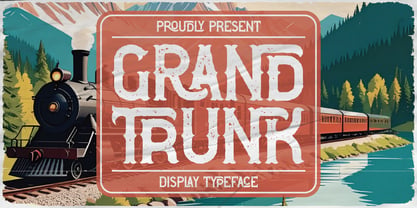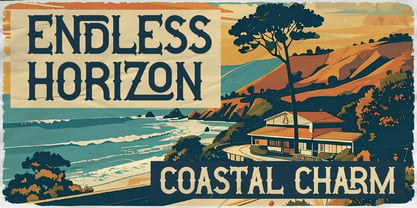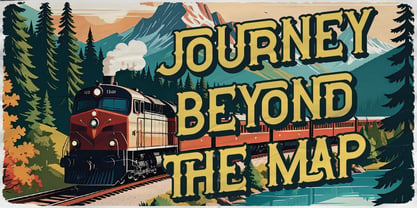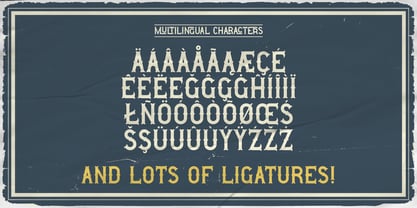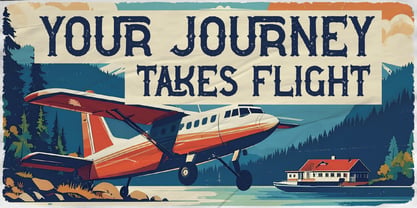
Grand Trunk
by Vozzy
The Grand Trunk Font Family was designed by Oleg Voznyy and published by Vozzy. Grand Trunk contains 2 styles and family package options. More about this family
Introducing the "Grand Trunk" font, a distinctive typeface perfect for headlines, accent inscriptions, and capturing attention. This font features a rich array of additional characters, punctuation marks, and multilingual options, along with an extensive selection of standard ligatures—ensure your software supports these OpenType features for optimal use. Ideal for branding, web design, and editorial projects, "Grand Trunk" will enhance your creative designs with its unique style and versatility!